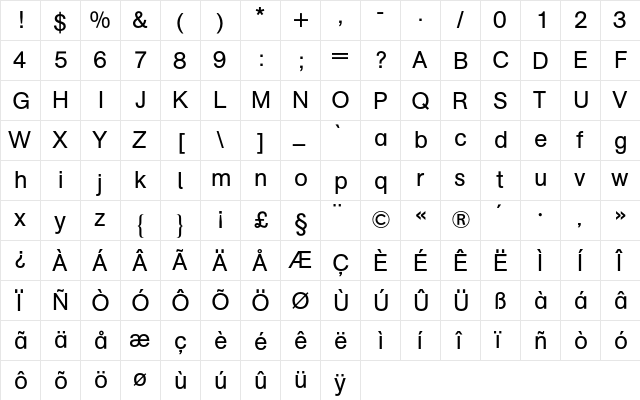
AG Schulbuch Two BQ Regular
Design Context for AG Schulbuch Two BQ Typeface
AG Schulbuch Two BQ takes a measured approach to typography — its balanced proportions and neutral character make it a reliable workhorse for both digital and print work.
Dating back to 1992, this typeface is available in OpenType (OTF) format.